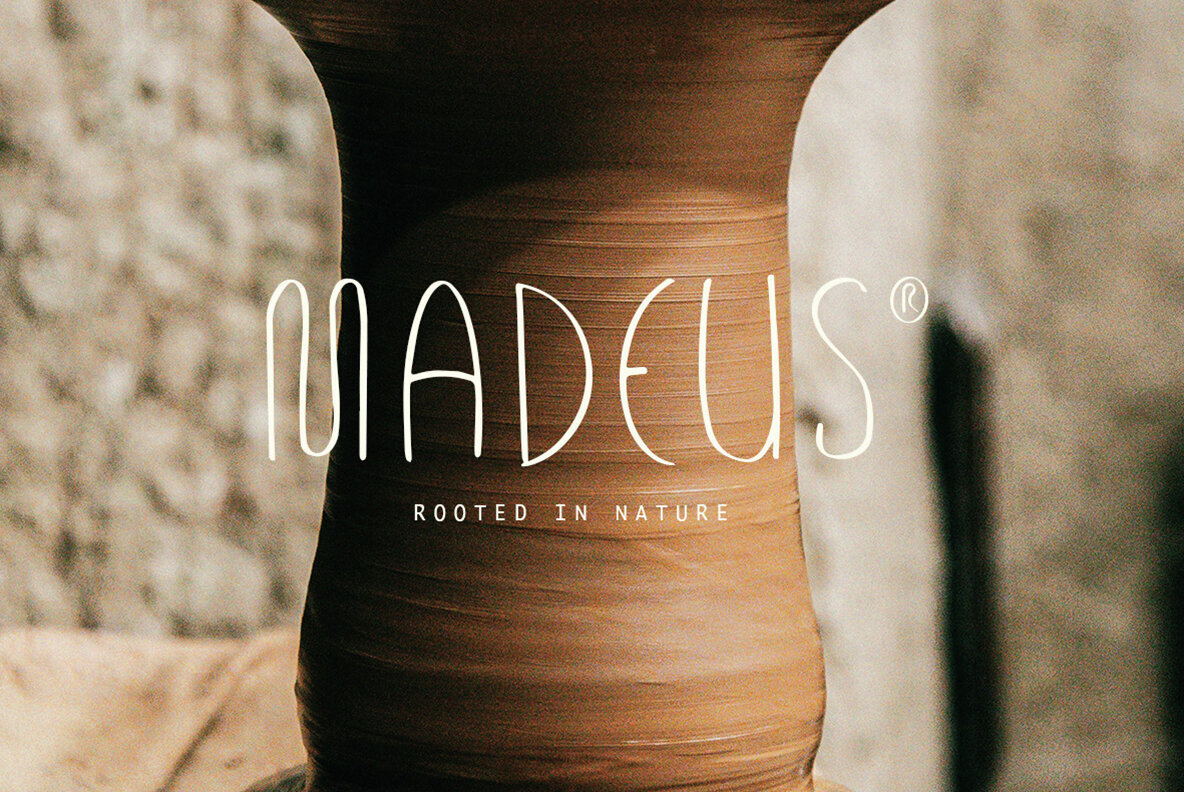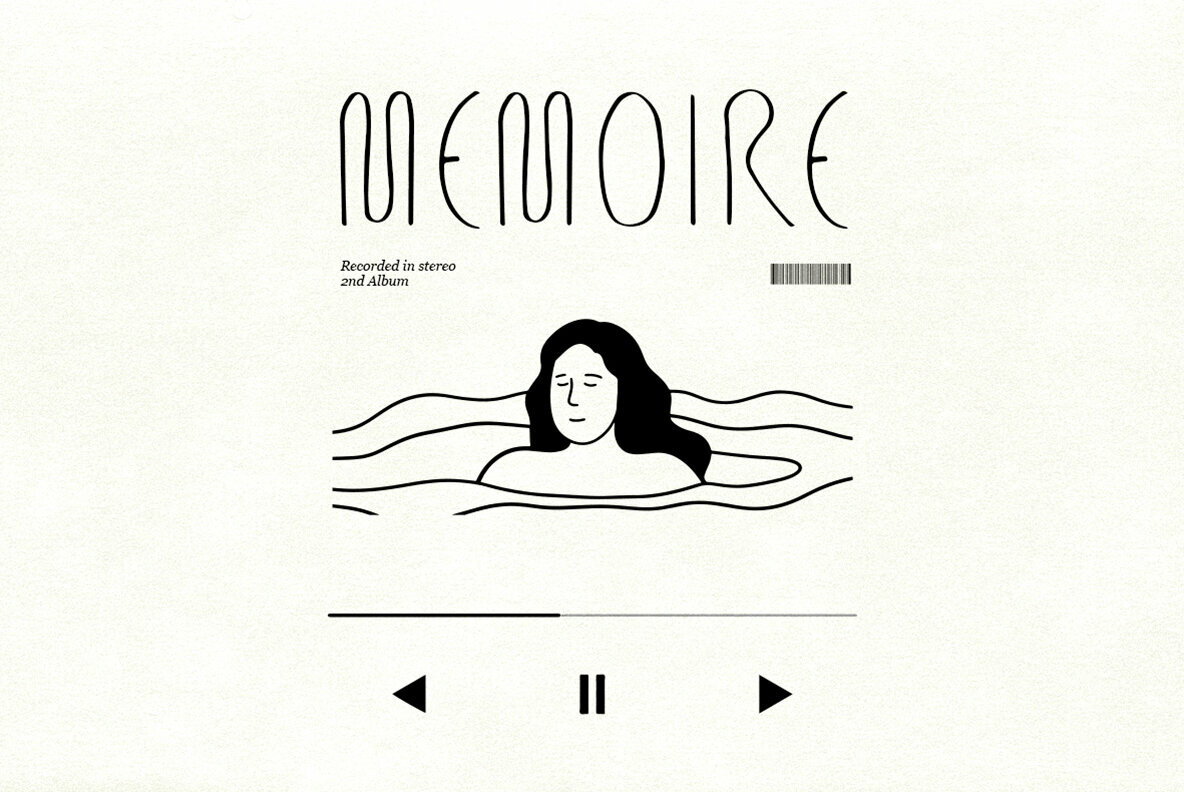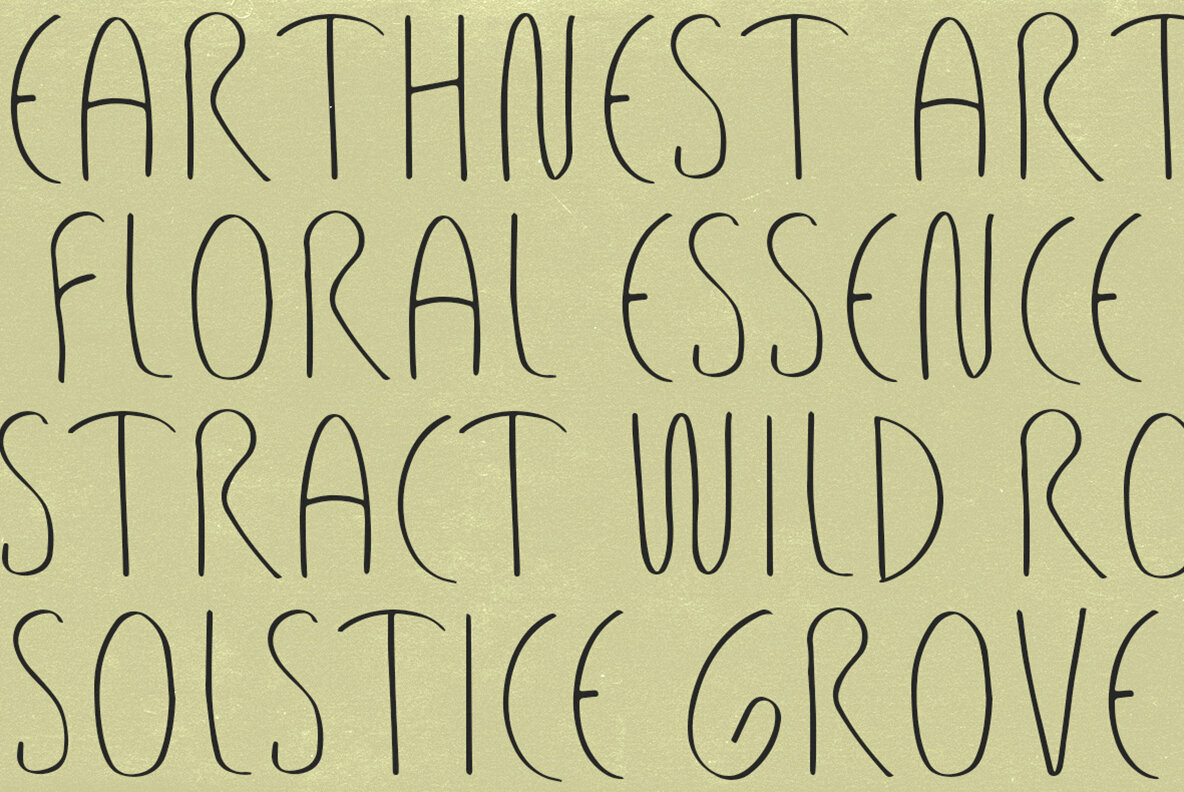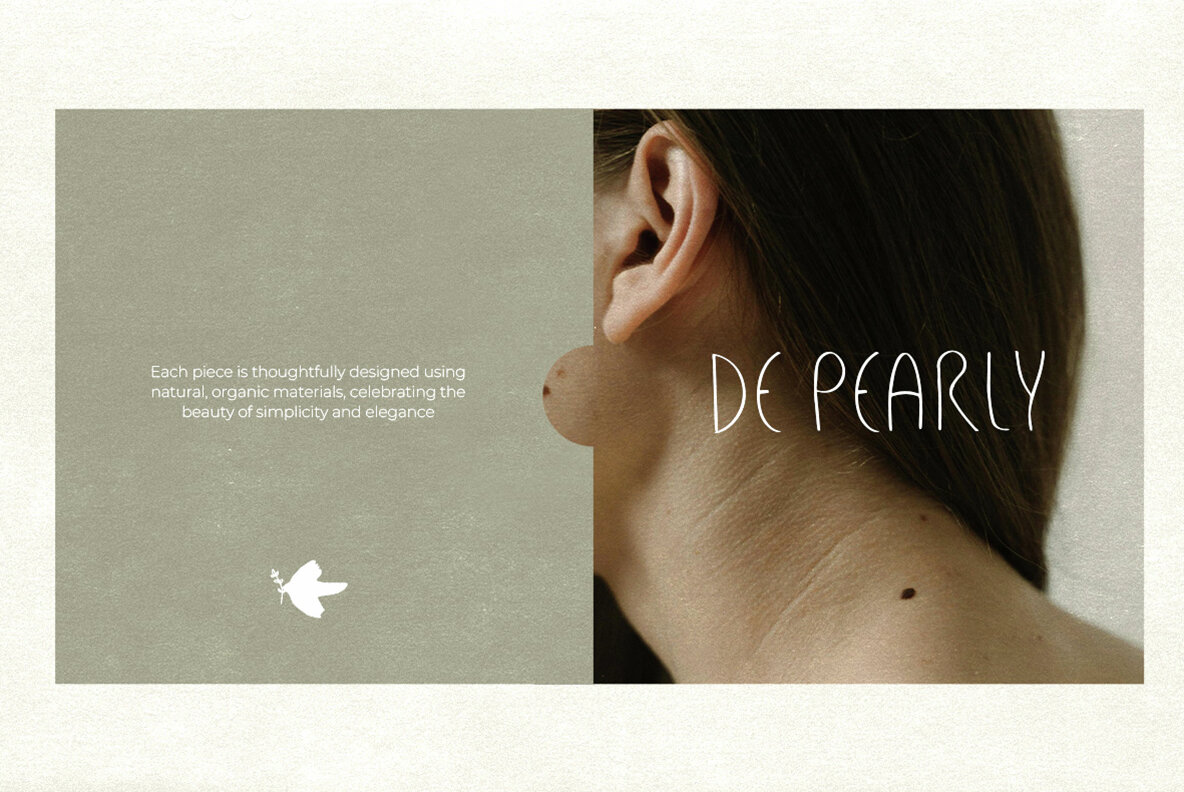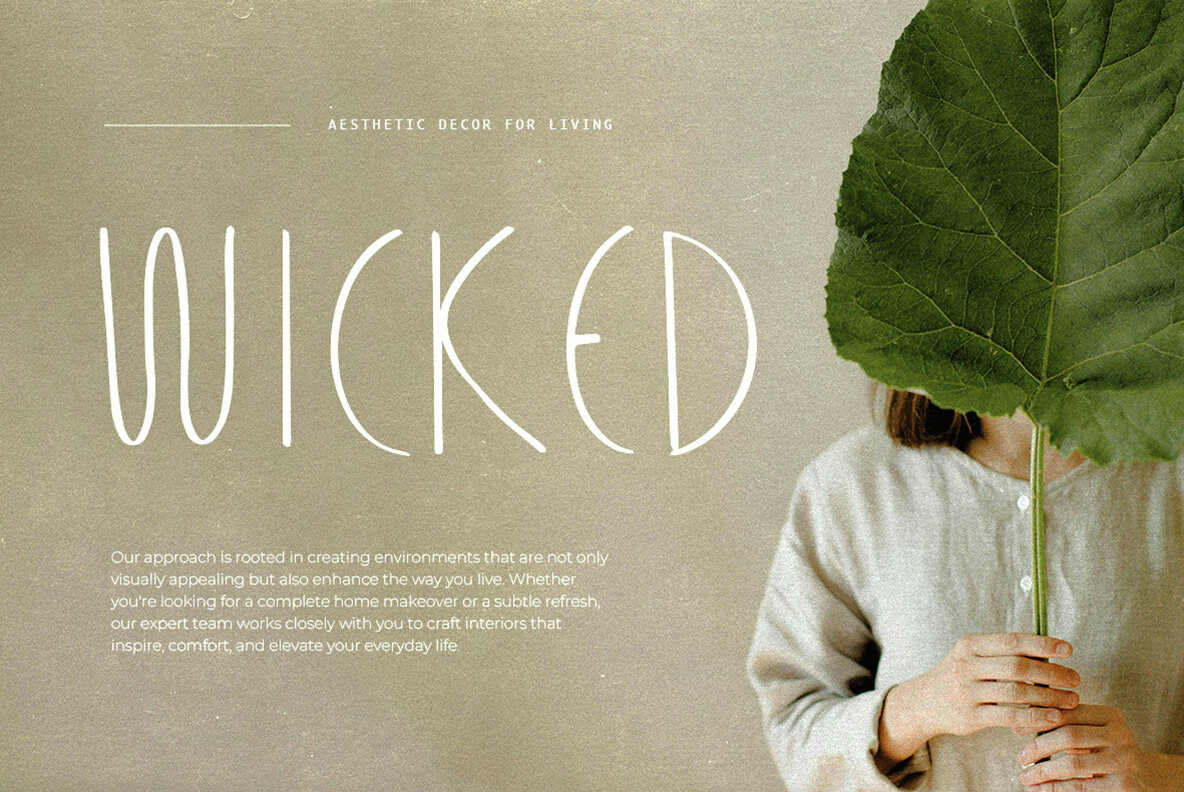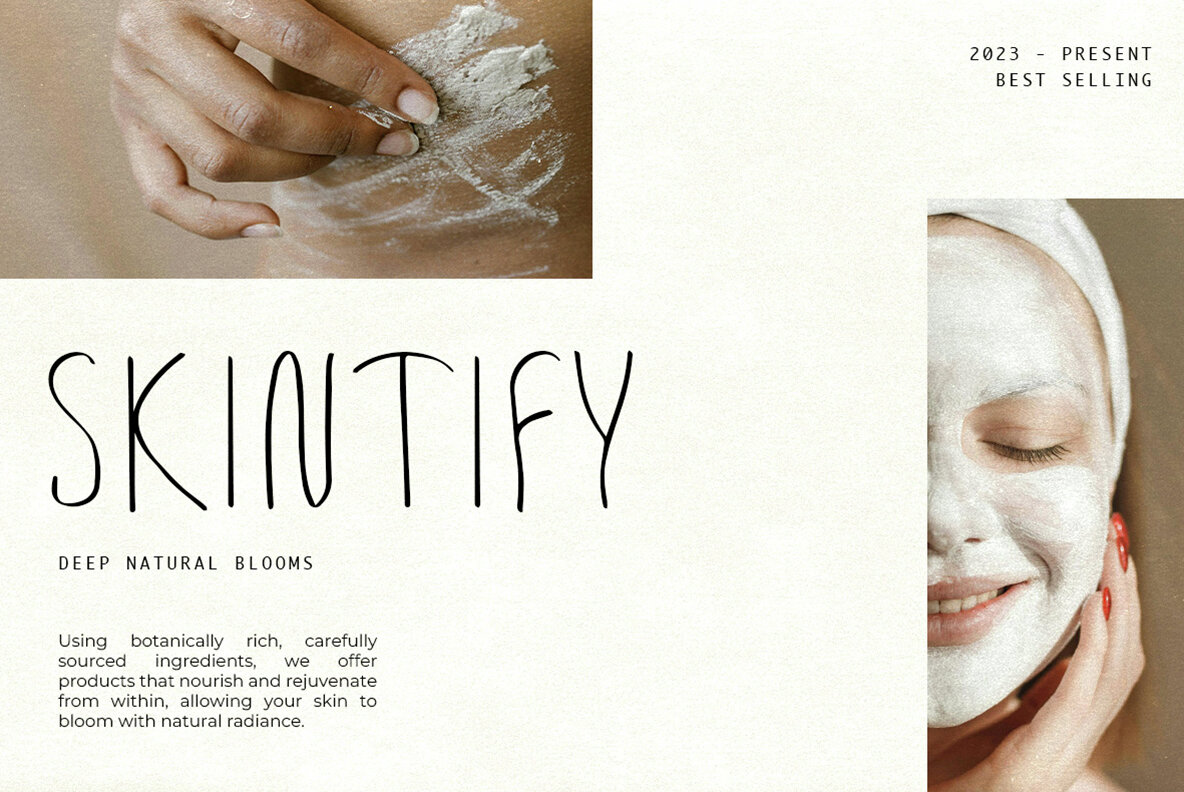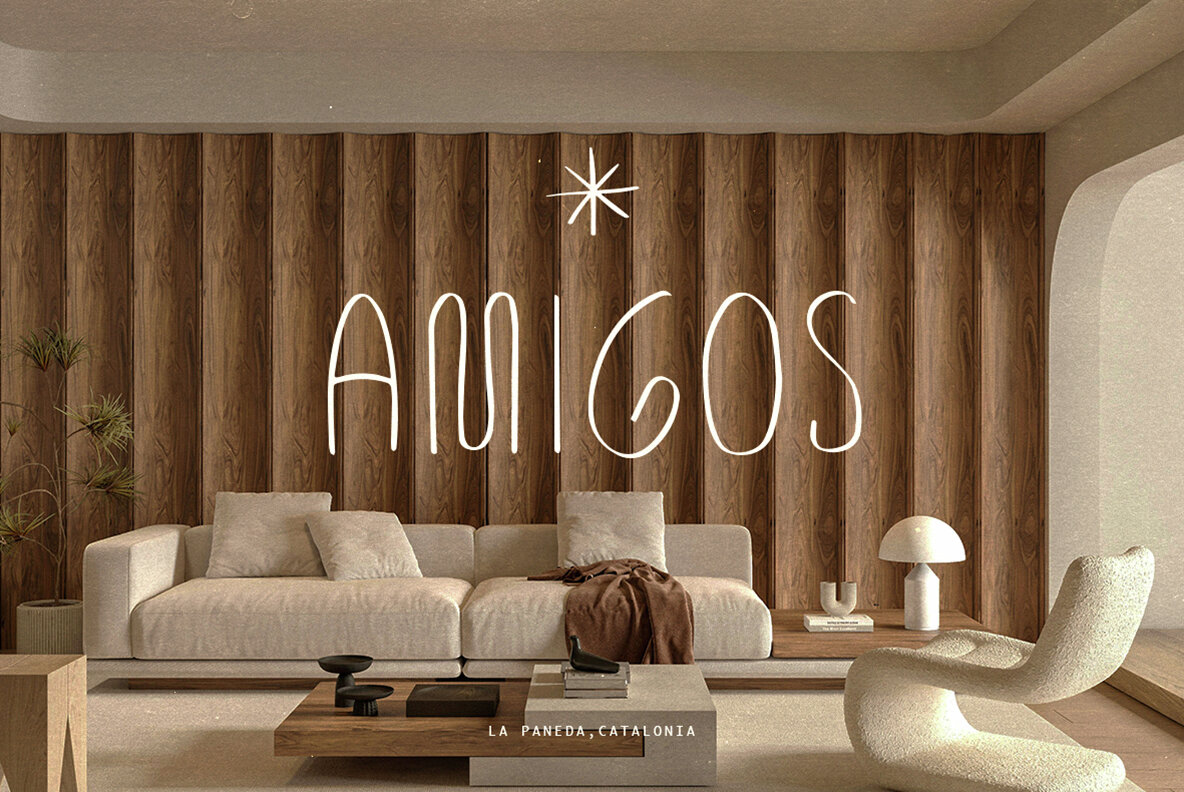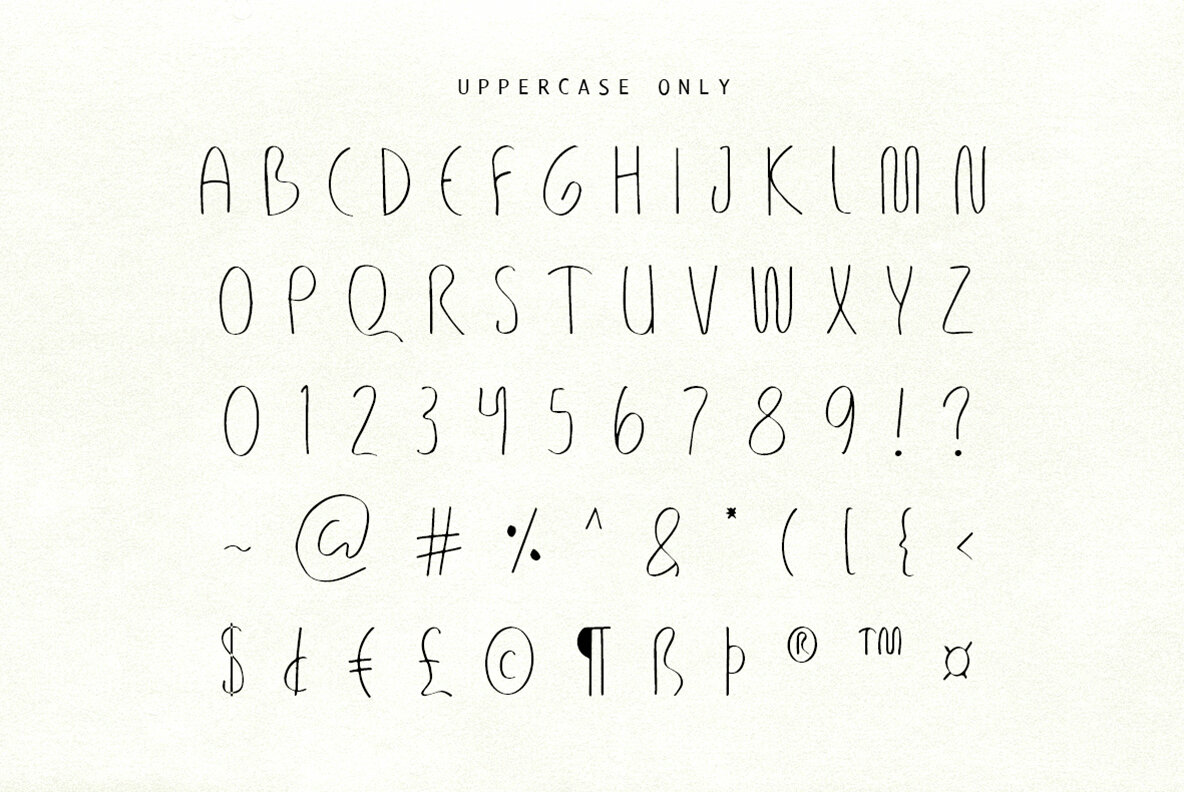
Lovlar Font
Lovlar Regular
Lovlar is a sans serif handwritten font that captures the essence of organic simplicity. It features clean lines and a natural flow, perfect for brands focusing on authenticity, sustainability, and artisanal elegance. Its unique style makes it a strong choice for projects that prioritize these themes, ensuring that your design communicates an effortlessly genuine appeal.
Designed in uppercase only, Lovlar serves as an ideal option for bold headings, logos, and branding materials requiring a striking yet refined visual impact. Its distinctive nature ensures your content stands out, projecting a sophisticated and handcrafted charm. This font effortlessly complements any design seeking to balance boldness with elegance, delivering a memorable and authentic look.